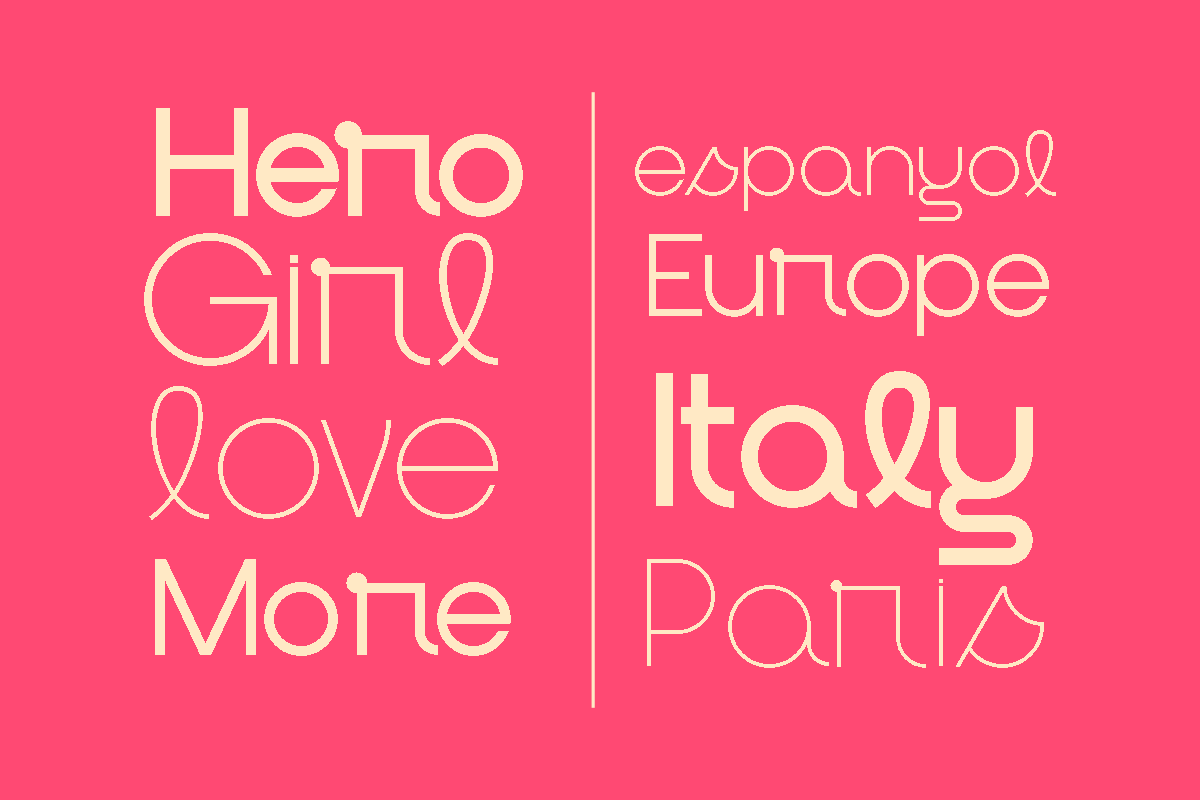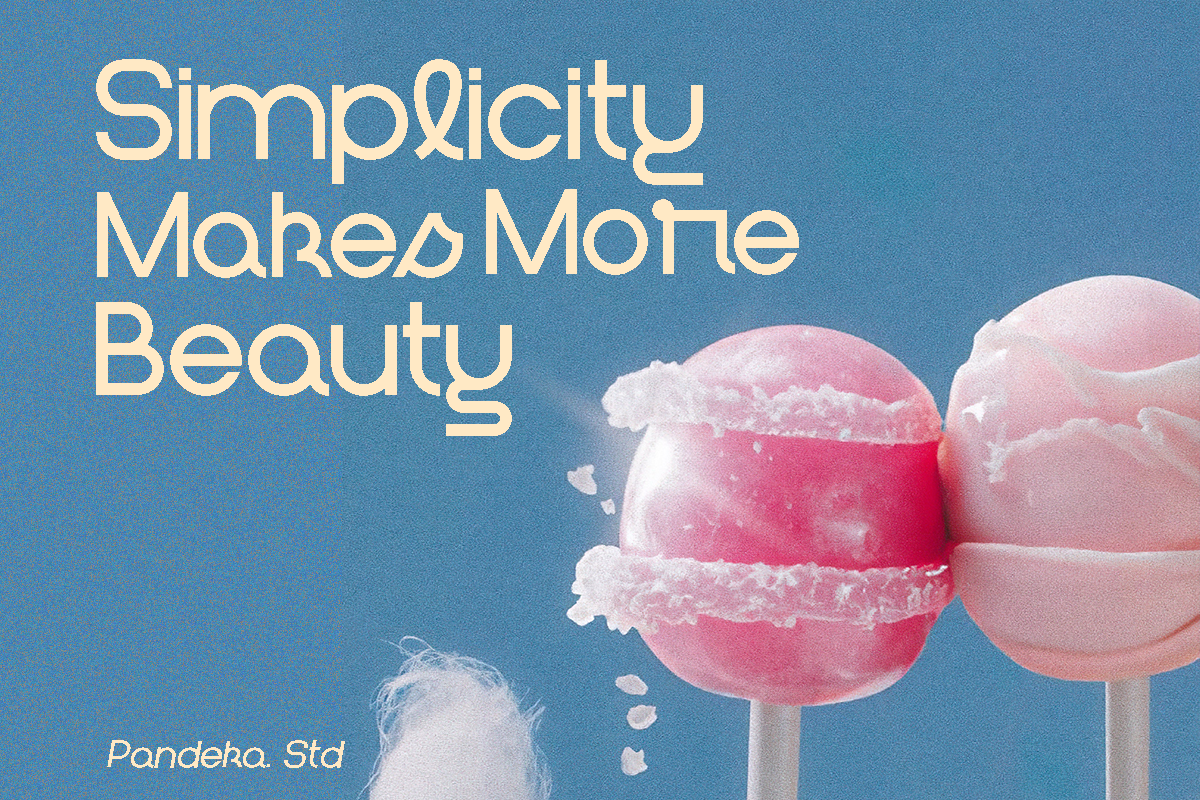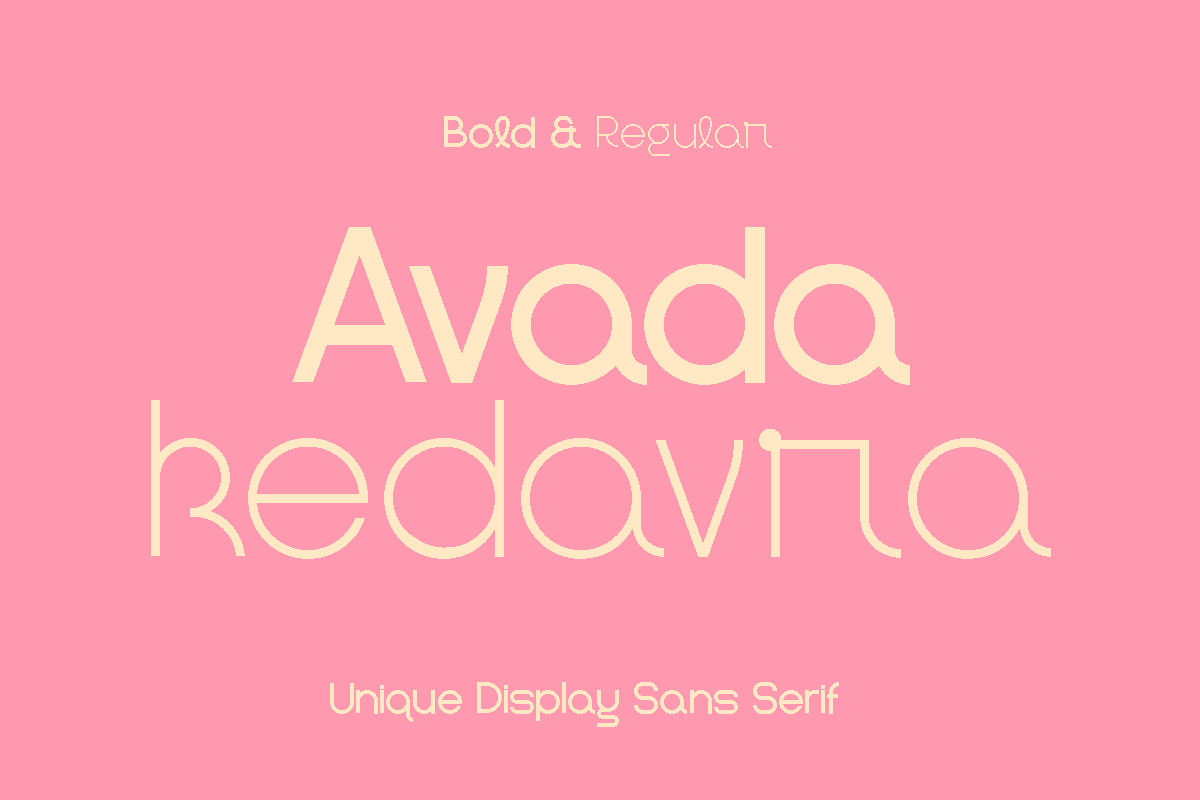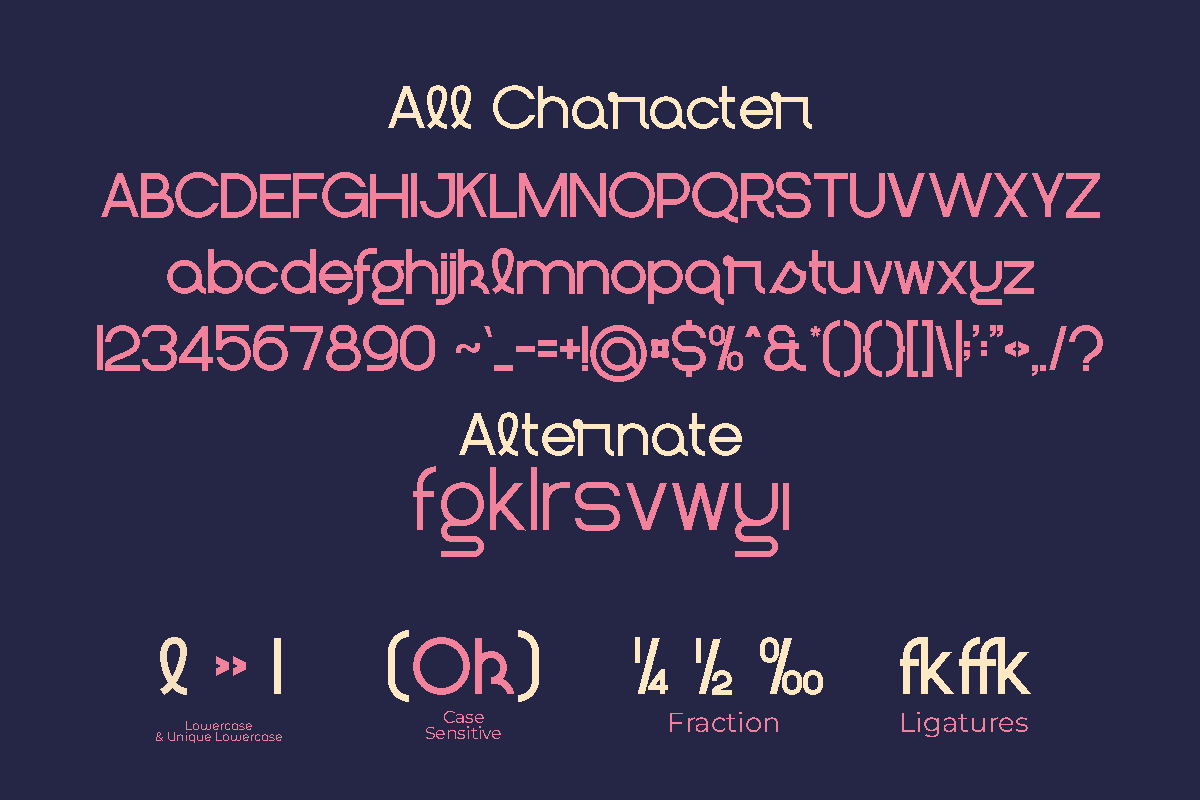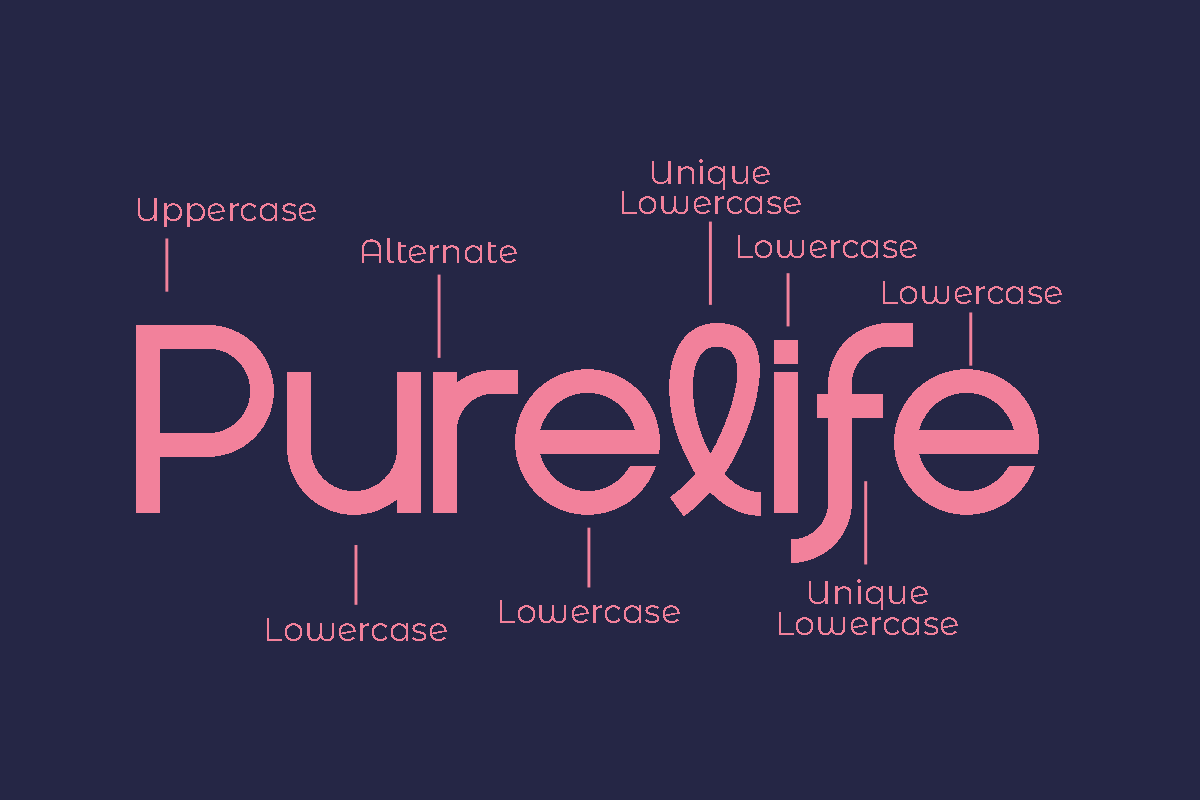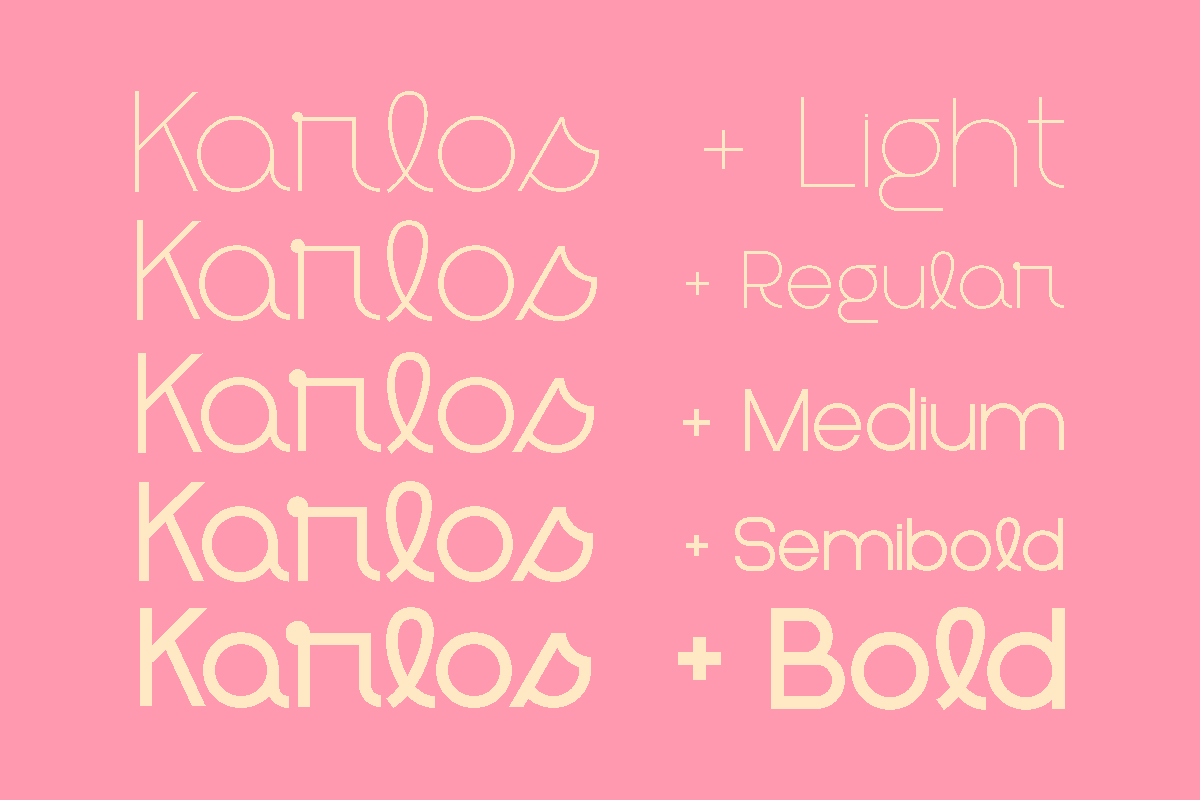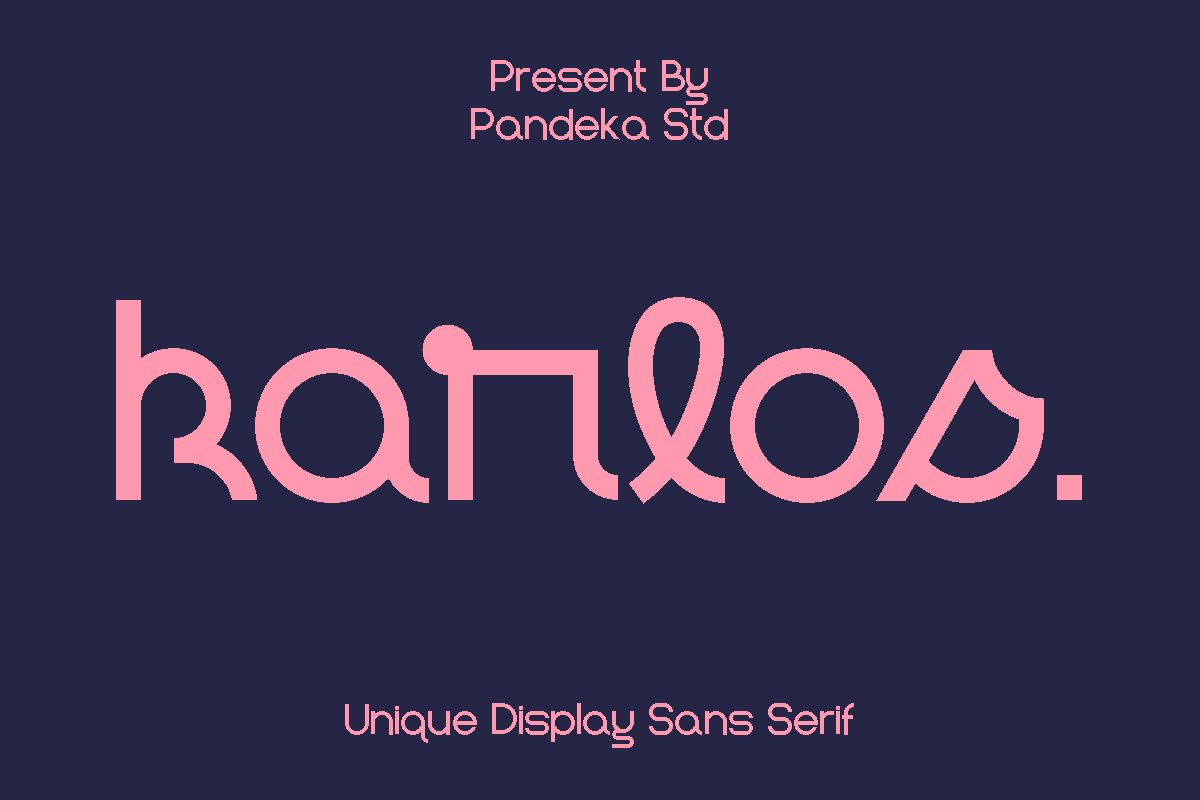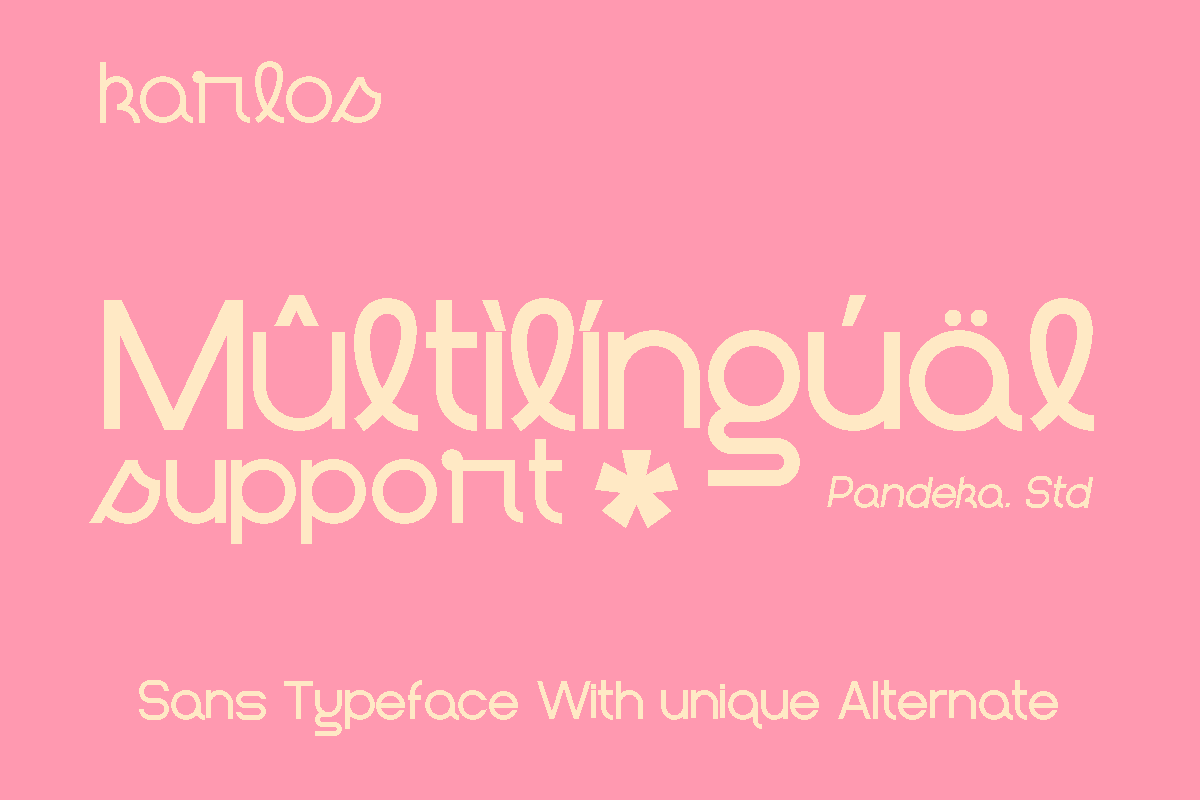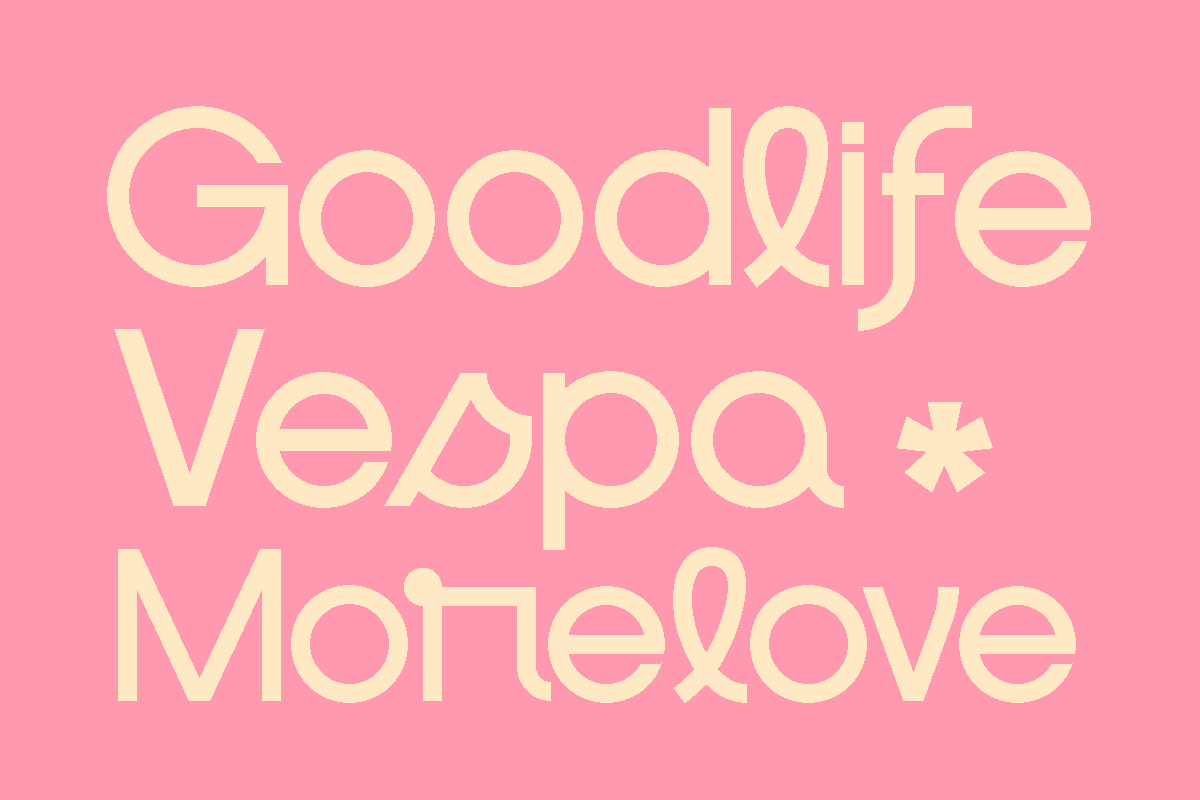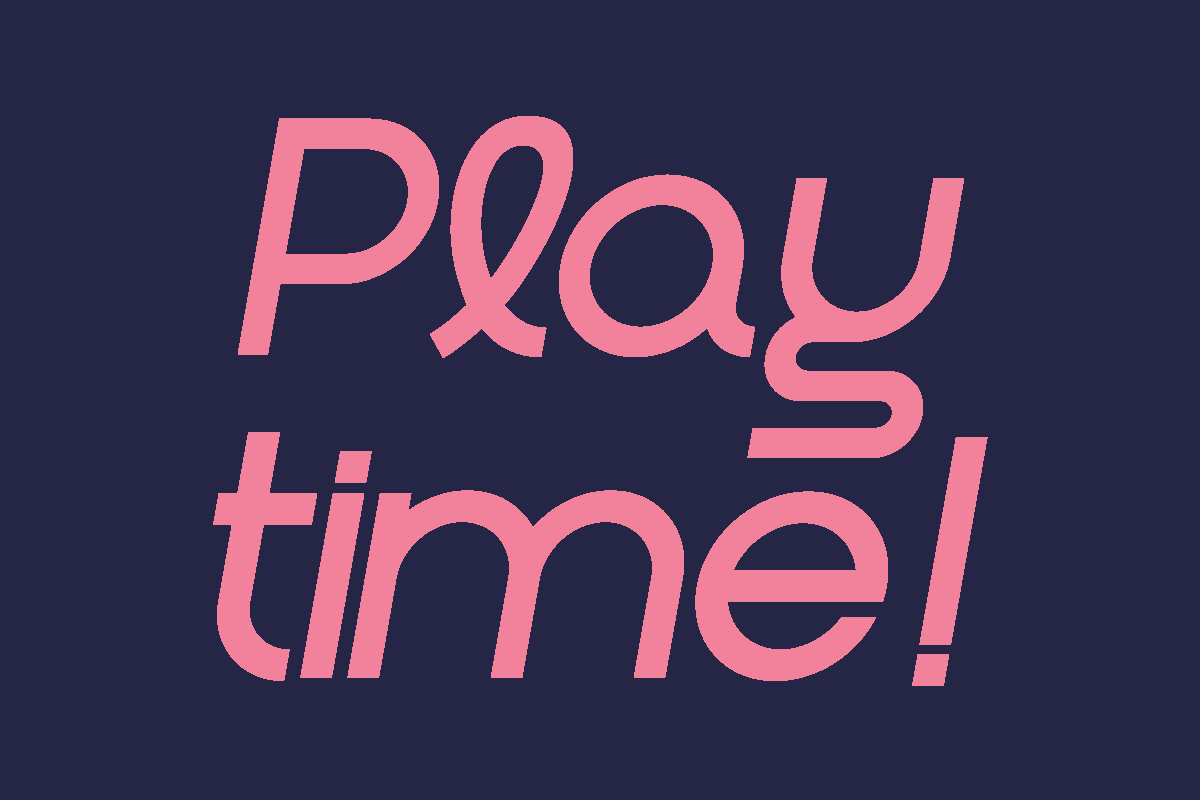
Karlos - Variable Playful Font
Karlos is a blend of a geometric sans serif and a modern script hybrid font, available in five family variations (Light, Regular, Medium, Semi Bold, Bold)
The Karlos design showcases a distinctive array of characters inspired by script letterforms (such as the f, k, l, r, s), seamlessly integrated into the overall geometric framework of the typeface. For a more classic sans-serif approach, the Karlos Alt design offers a slightly more restrained option.
The five family options harmonize perfectly, catering to both display and text needs. Karlos imparts a unique, creative, and expressive touch, ideal for branding, advertising, packaging, headlines, magazines, websites, logos, and more.